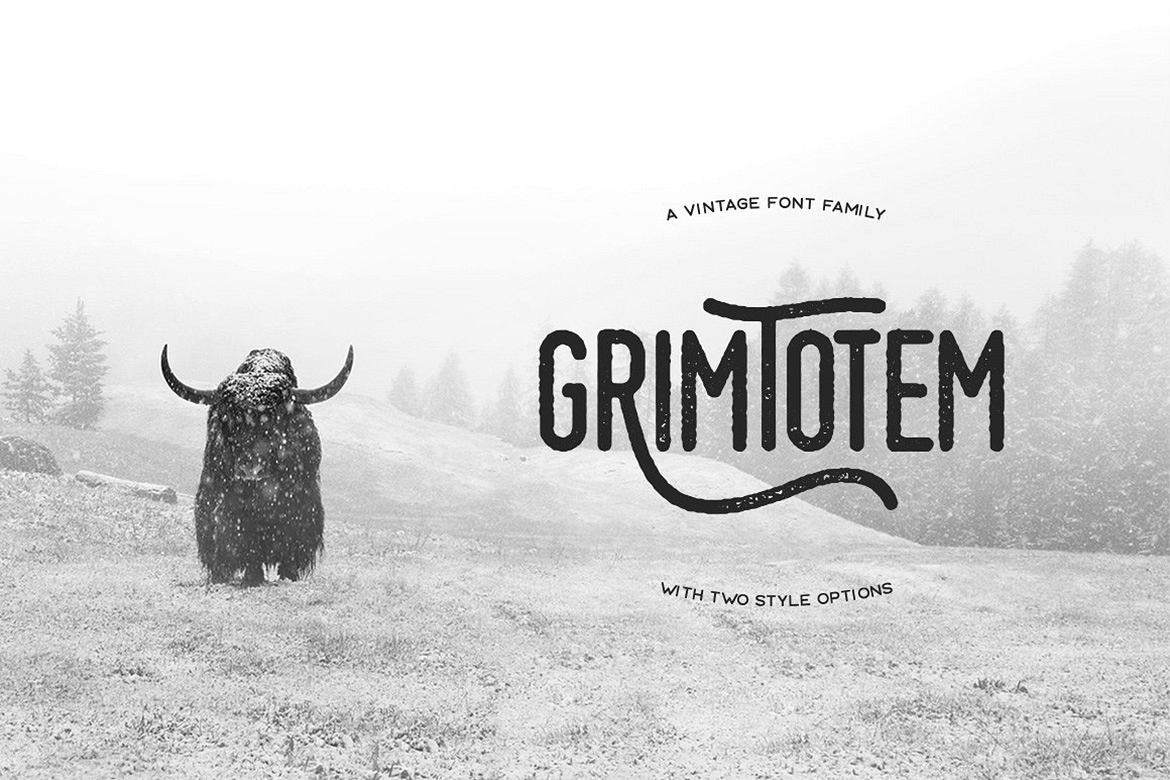
Grimtotem Typeface
Grimtotem-Clean
Grimtotem-Rough
Grimtotem is a display font family with clean and rough style options. The rough version fits the theme better but I decided to include the clean version in case you'd like to use your own textures.
The font includes stylistic alternates, some of which can be accessed by toggling caps lock, although you'll need to use the glpyhs panel of Illustrator or Photoshop to use all the glyphs.